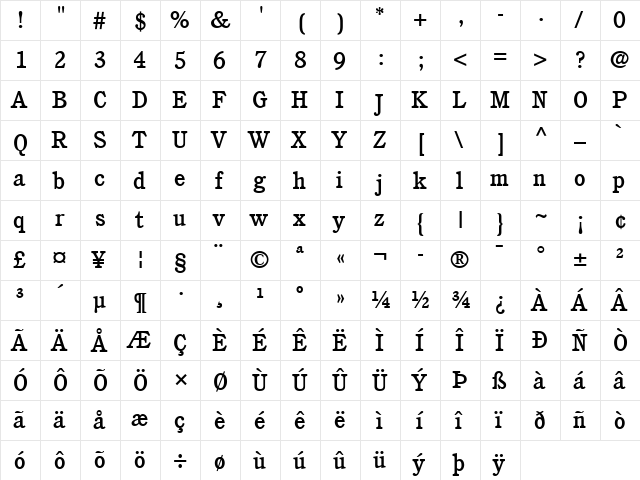
Cushing LT Medium Regular
Design Context for Cushing LT Medium Typeface
Cushing LT Medium offers clean, dependable letterforms without strong stylistic allegiance, making it a practical choice for designers who need flexibility. Its slender proportions lend an understated elegance to any composition.
Pro Tip: Use Cushing LT Medium in both headline and body roles to test its range before committing to a single application.